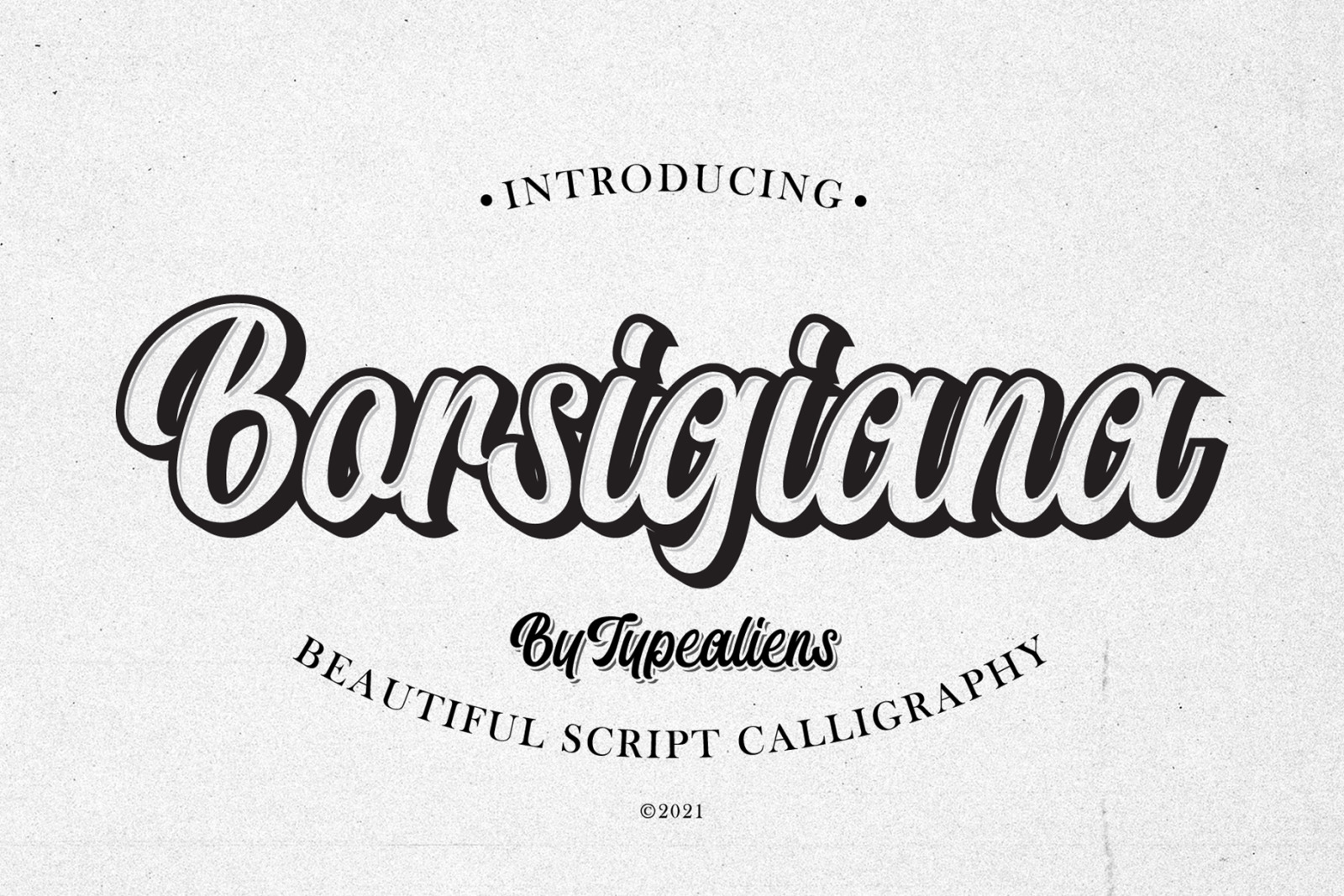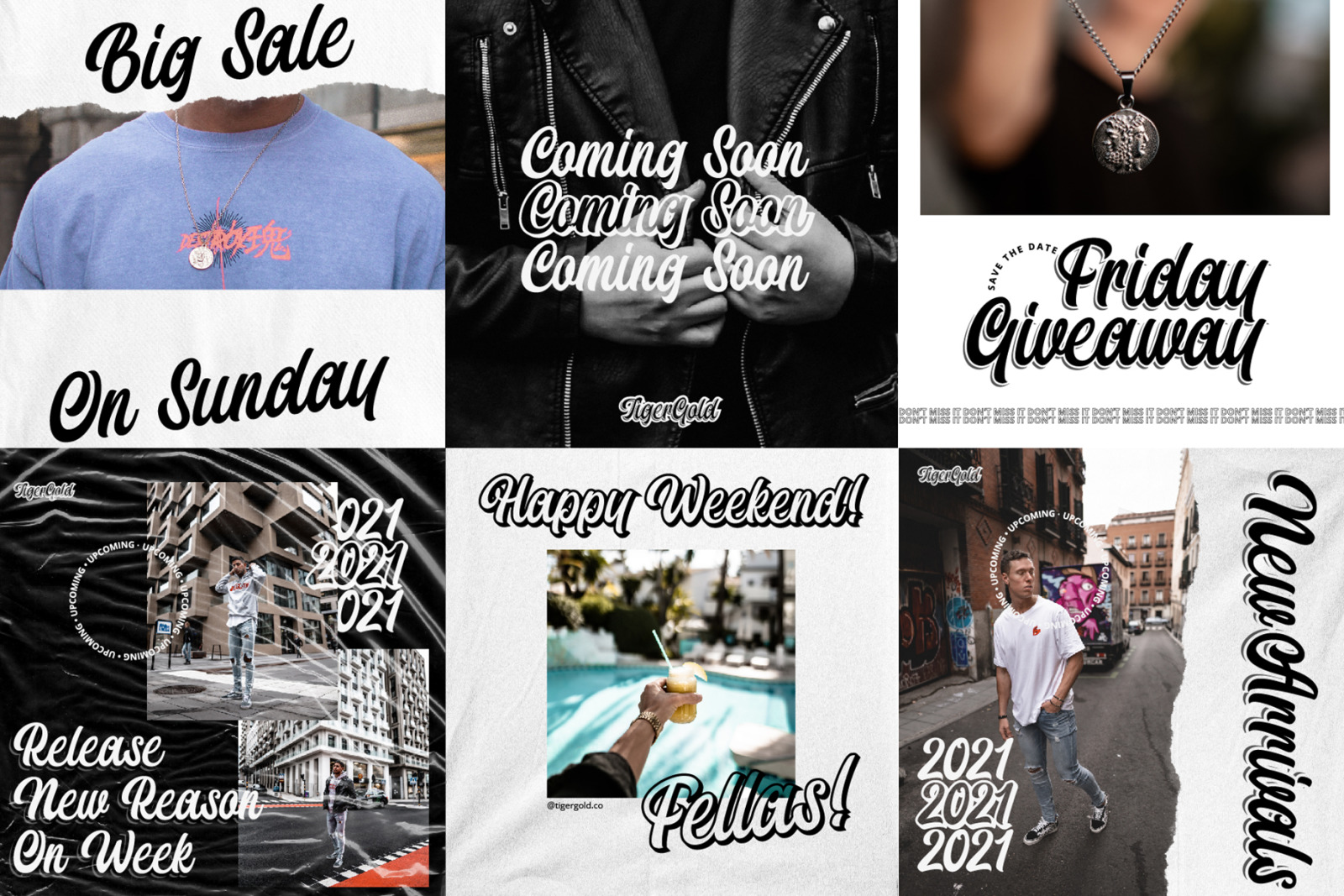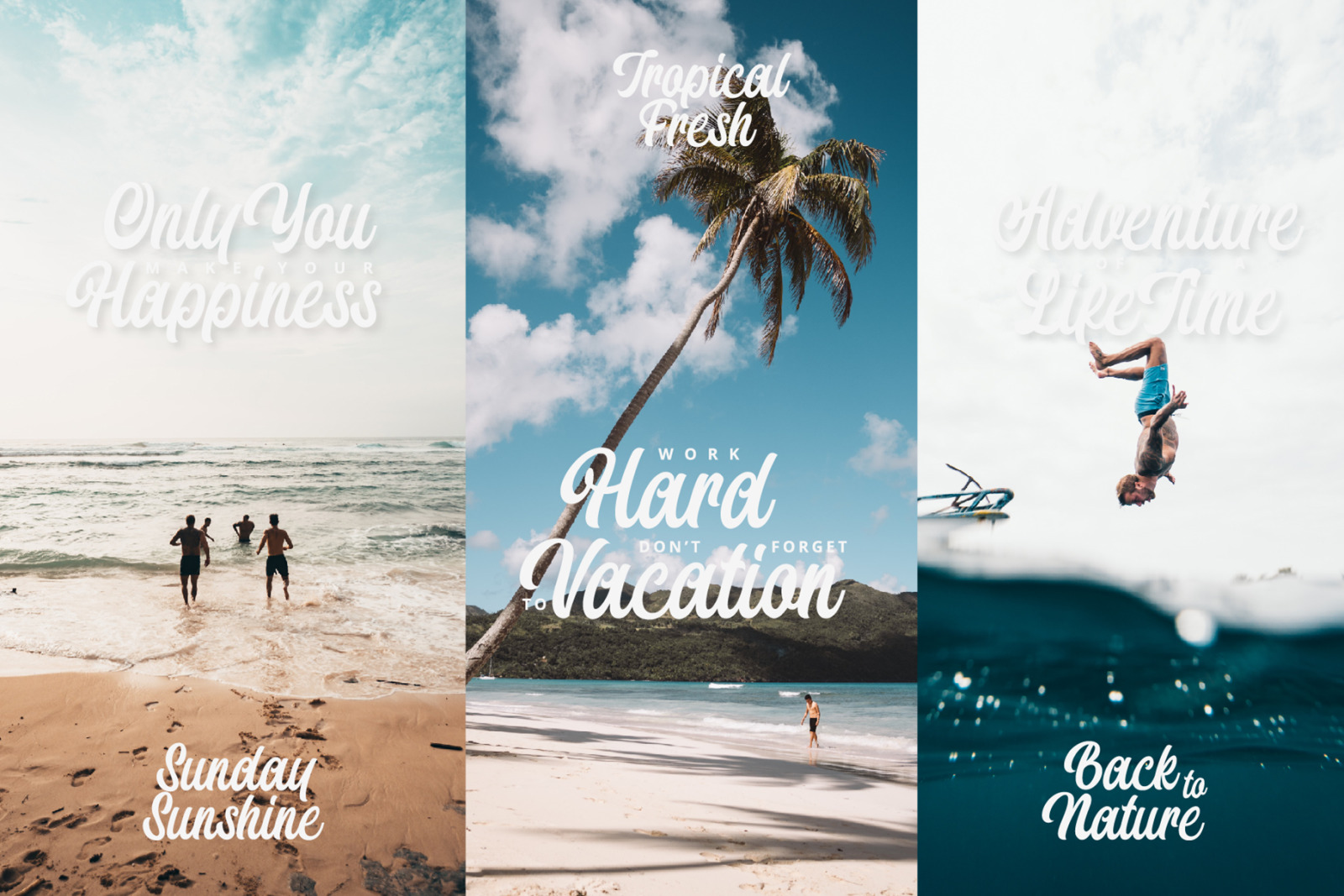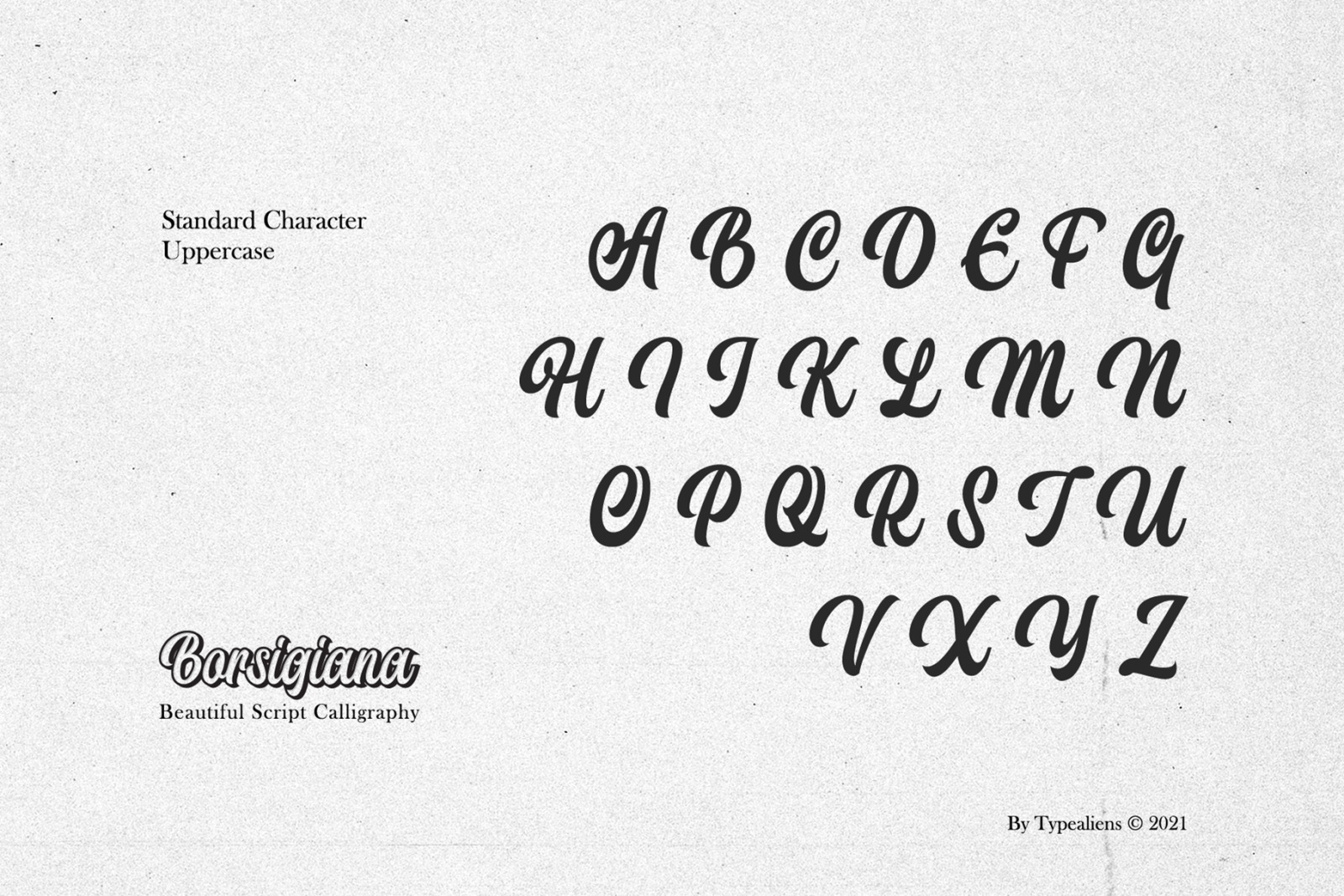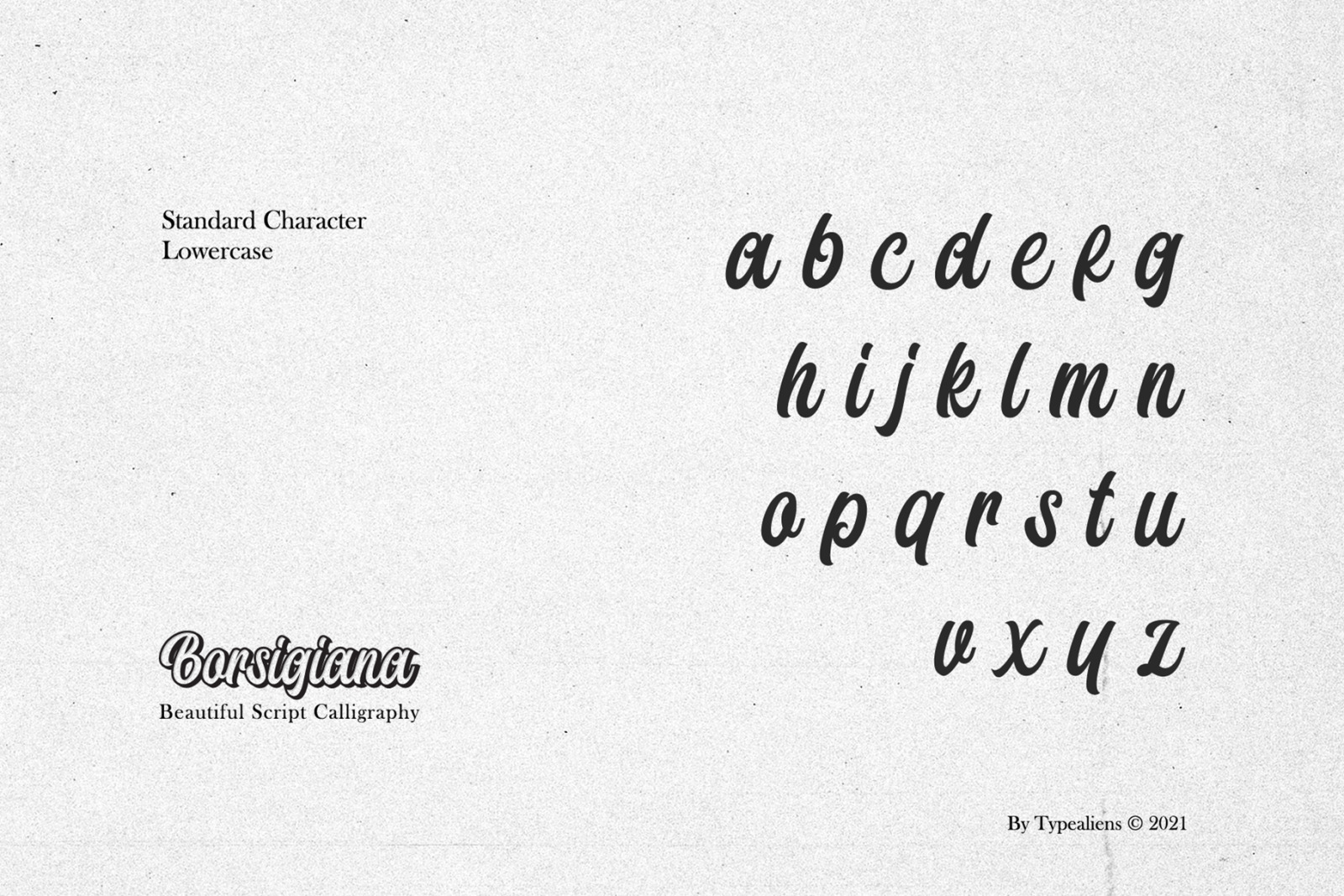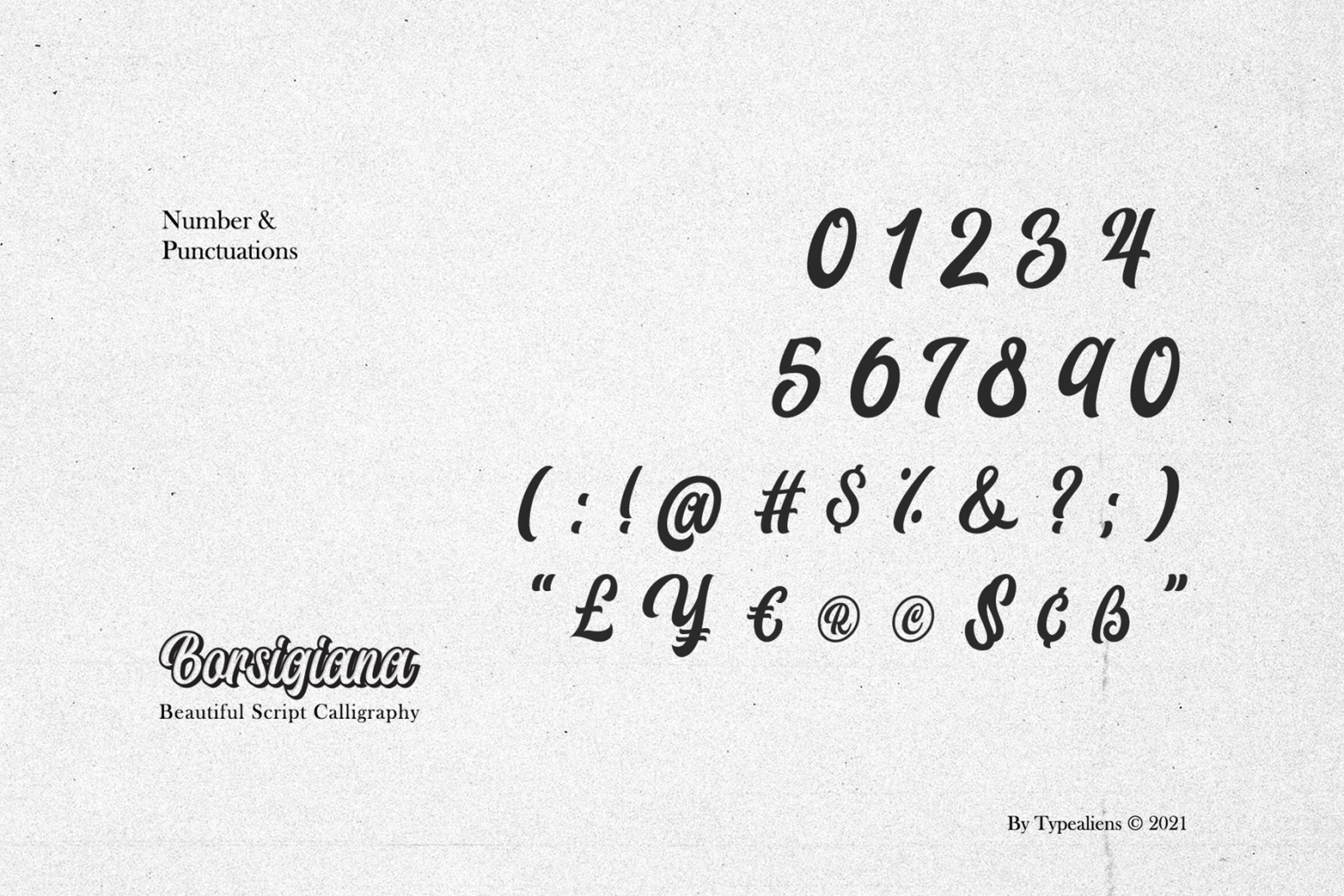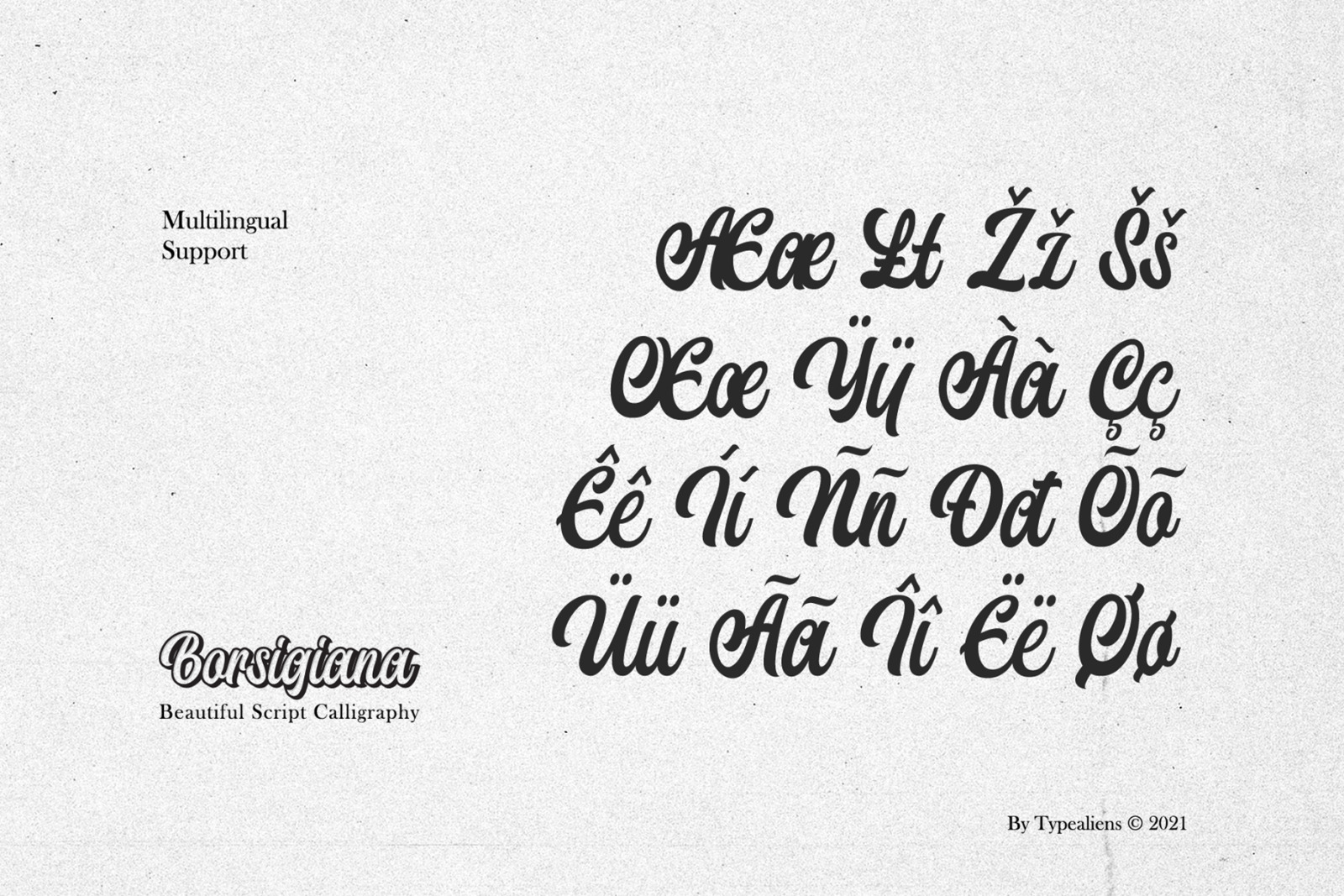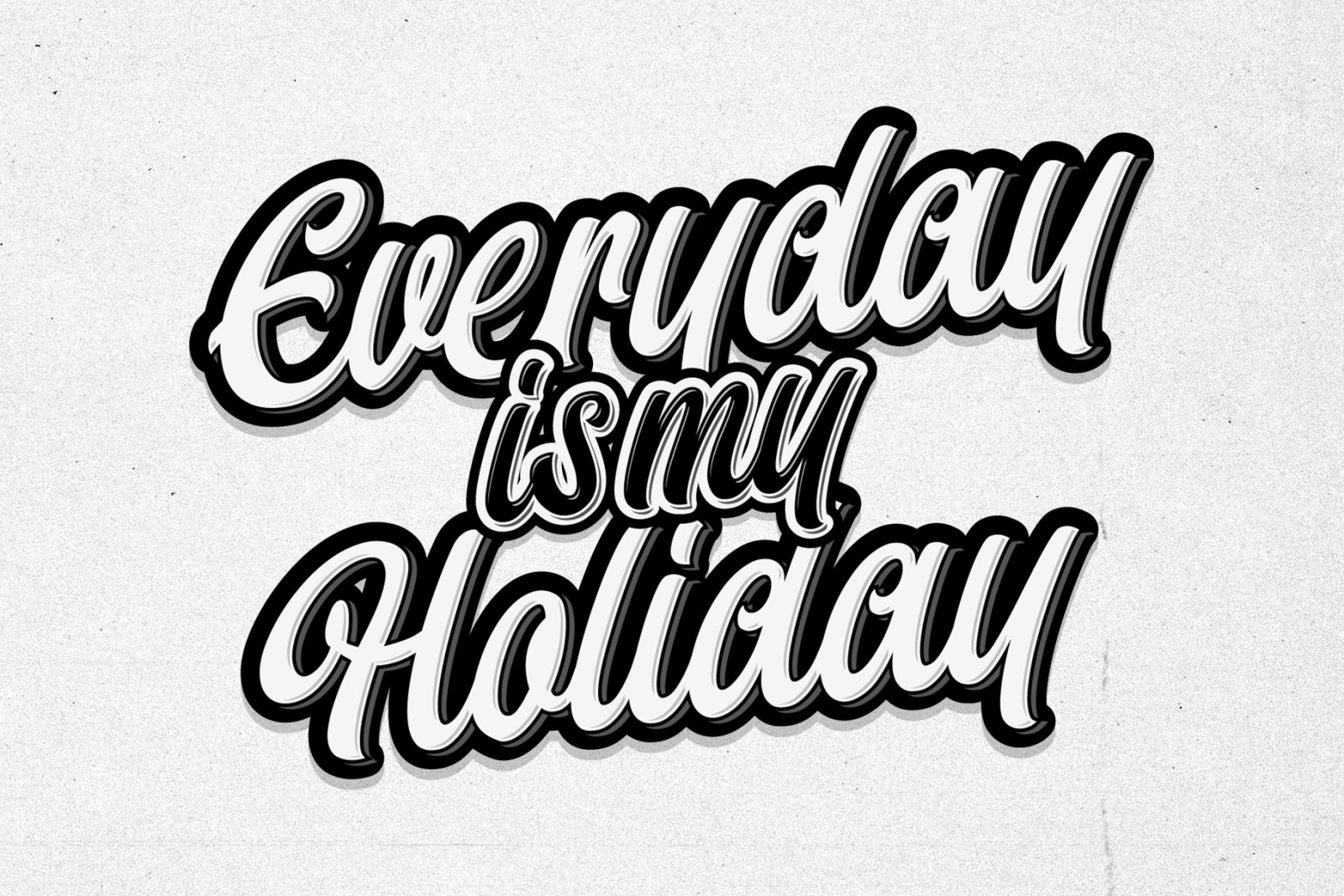
Borsigiana Font
BORSIGIANA is a beautiful and modern script font, perfect for social media, logotype, branding, logo badges etc. With a unique and modern style plus a little bonus illustration will really help and support your design.